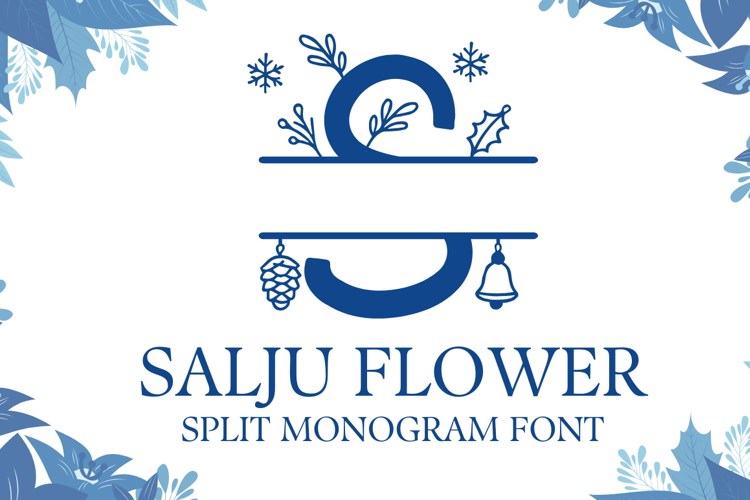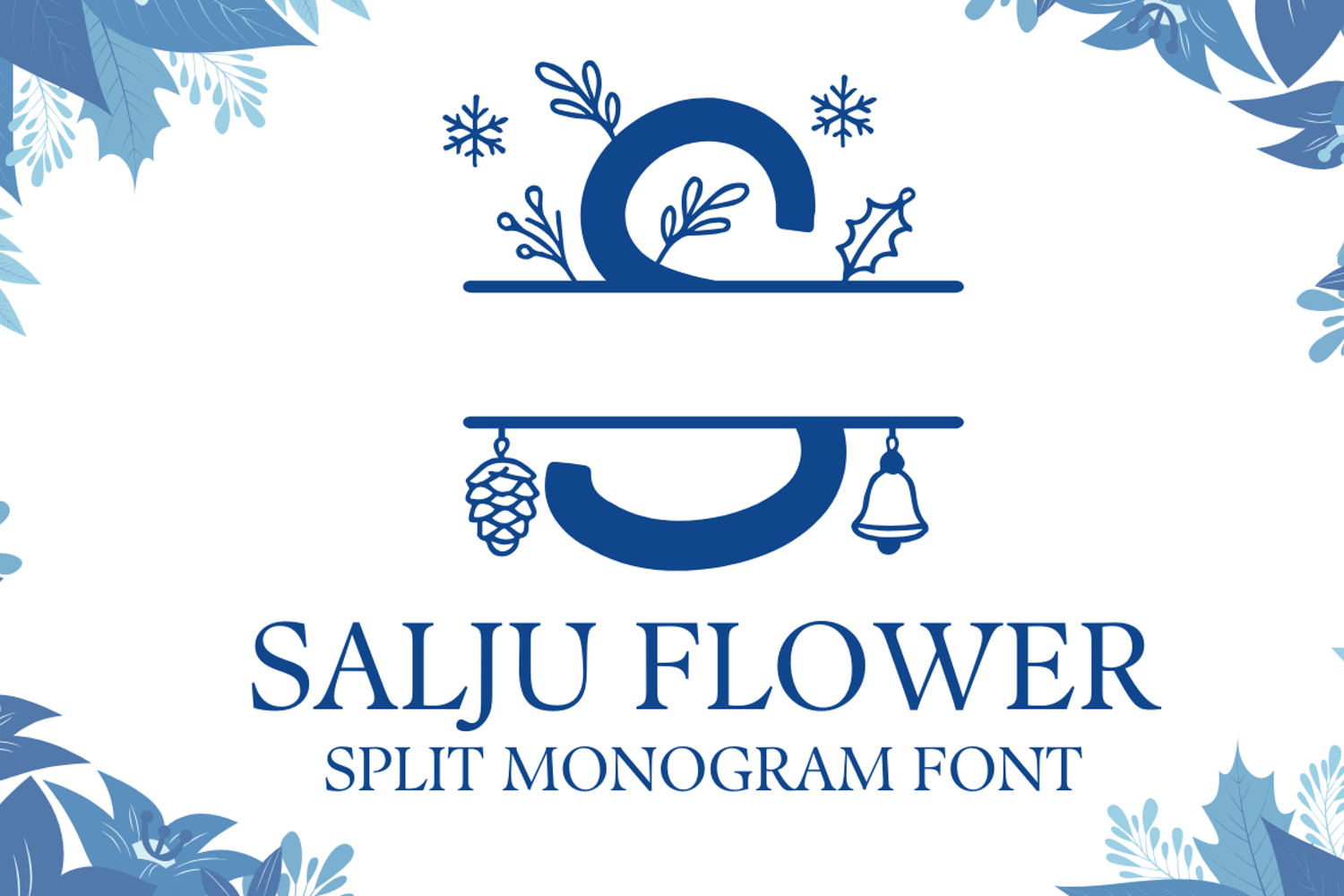
Salju Flower Split Monogram Font is a winter-themed split letter monogram typeface. It includes uppercase, lowercase, and numerals, each decorated with snowy florals, holly, pinecones, bells, and sprigs. The built-in split bar lets you place a name or short phrase in the center for fast, elegant.
Need a frame without a letter? Press “.” or “,” to insert the Monogram Frame Without Letter, then add your initial later in your design app. The font converts to clean vector outlines for crisp cutting and scaling—from small labels to large signage.
Salju Flower